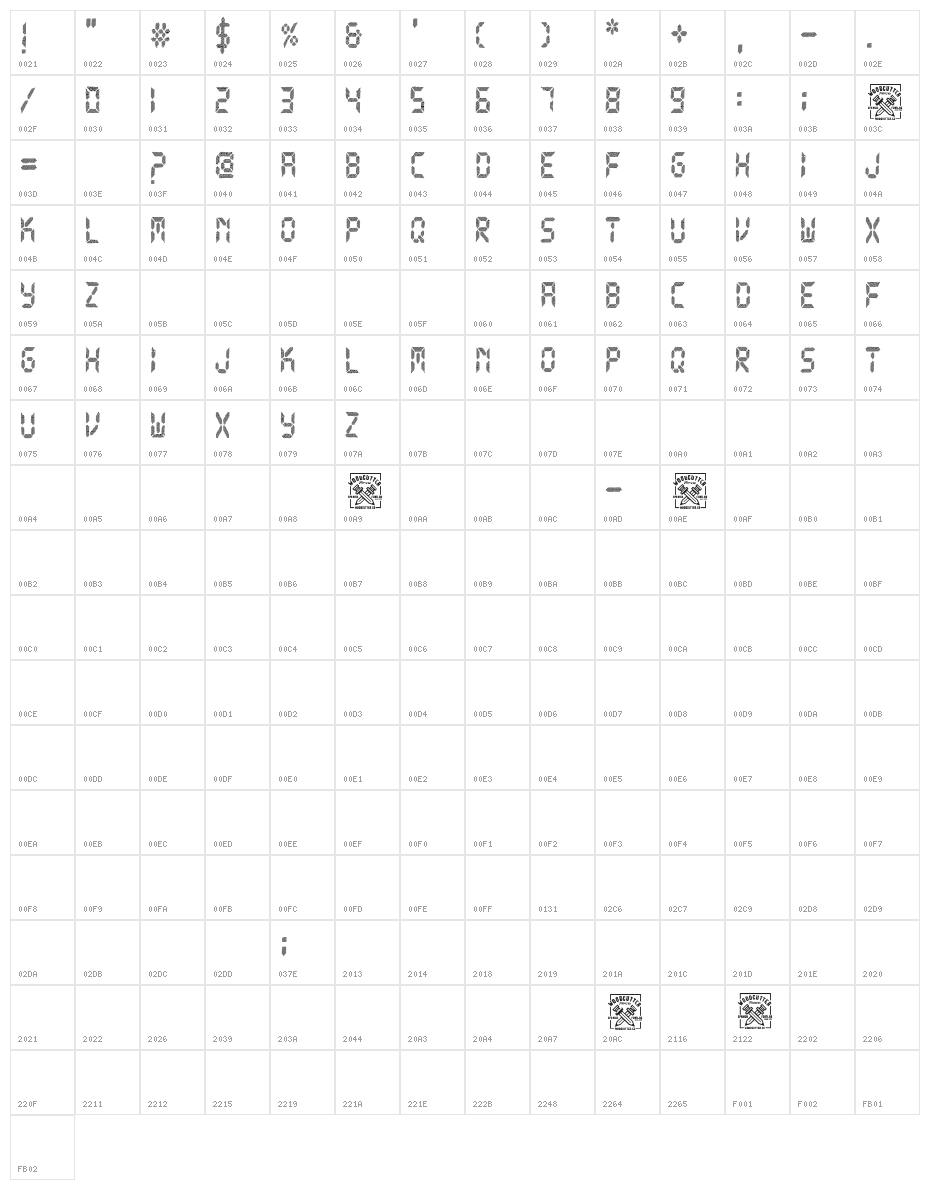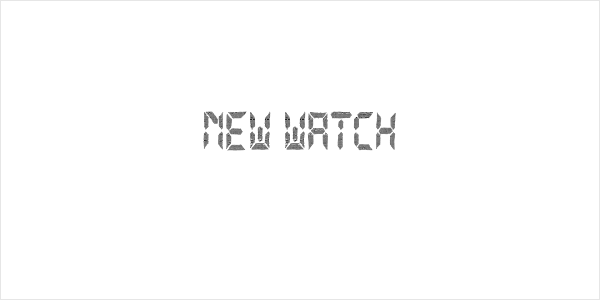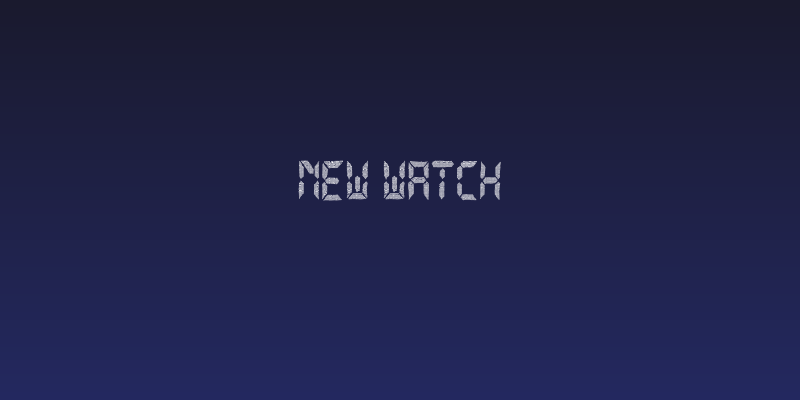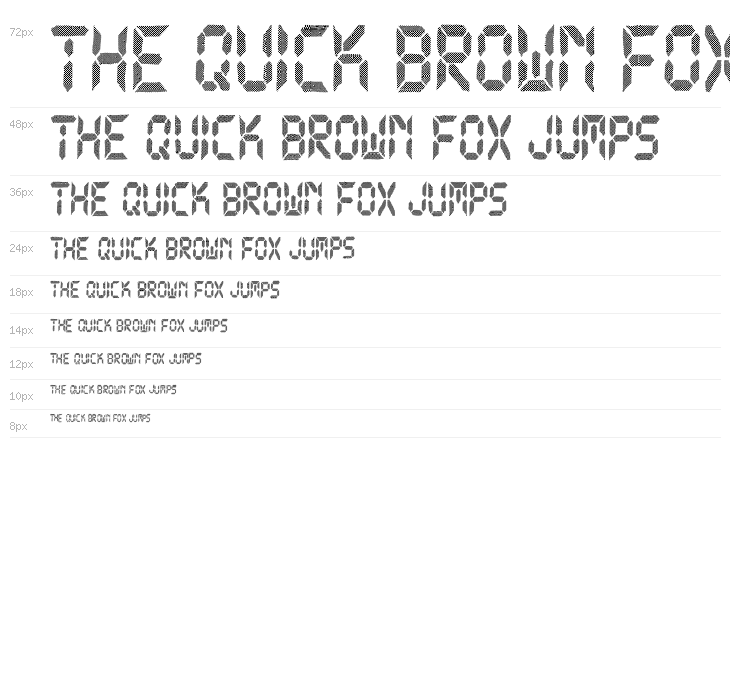
New Watch Font
New Watch Description
This font features a digital, segmented style reminiscent of classic digital watches and electronic displays. Each character is constructed from a series of geometric shapes, primarily using straight lines and angles to form a cohesive and uniform appearance. The design is highly structured, with each letter and number appearing as if it is part of a digital readout. The font's aesthetic is both futuristic and retro, capturing the essence of early digital technology. Its pixelated, grid-like pattern gives it a distinctive, tech-inspired look that is both functional and decorative. The characters are evenly spaced, ensuring readability while maintaining a consistent visual rhythm. This font is ideal for projects that require a technological or digital theme, offering a unique blend of nostalgia and modernity.
| Use Case | Headlines, Logos, Digital Interfaces |
| Proposed Projects | Ideal for digital-themed projects, tech branding, electronic device interfaces, and retro-futuristic designs. |